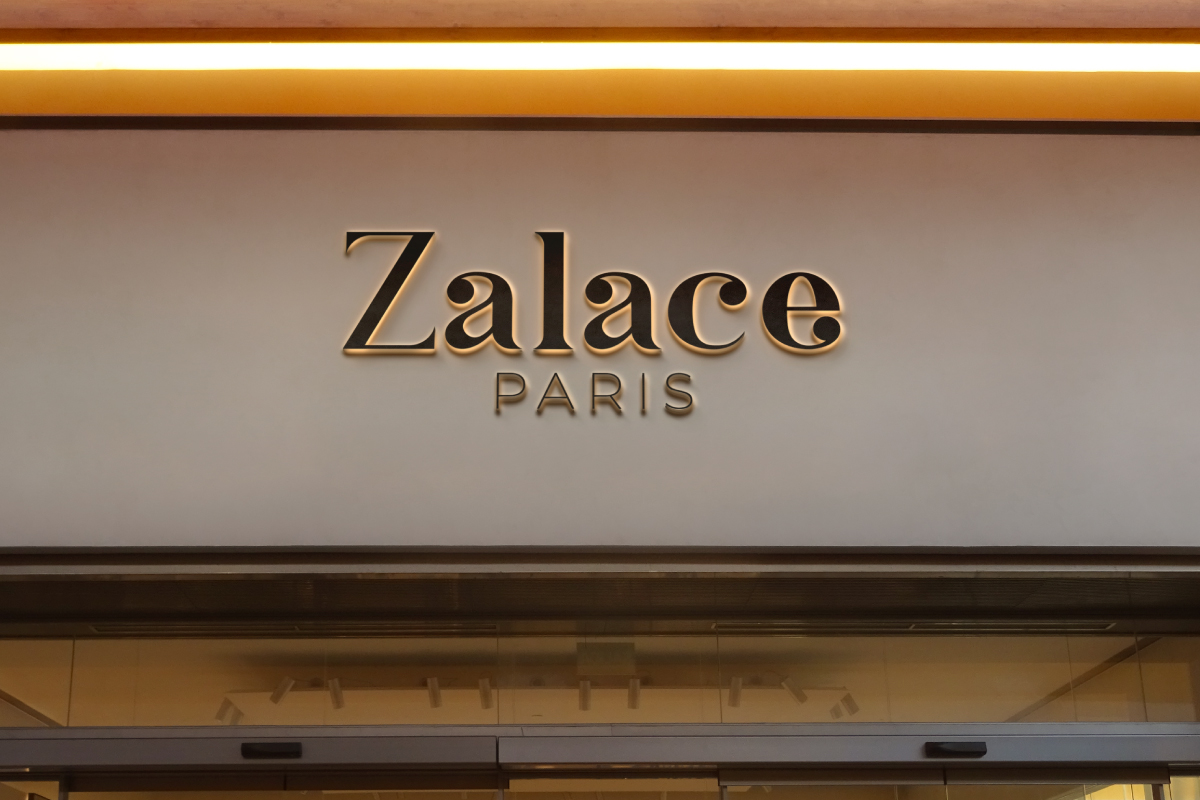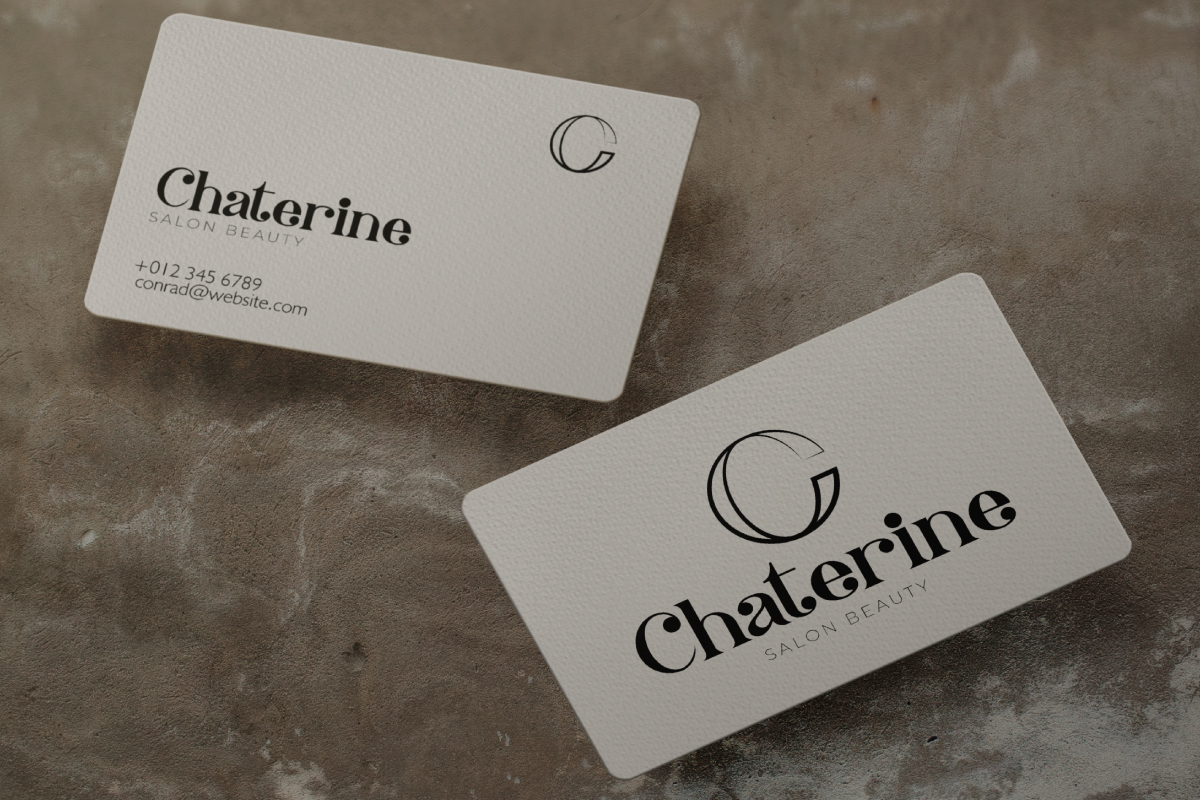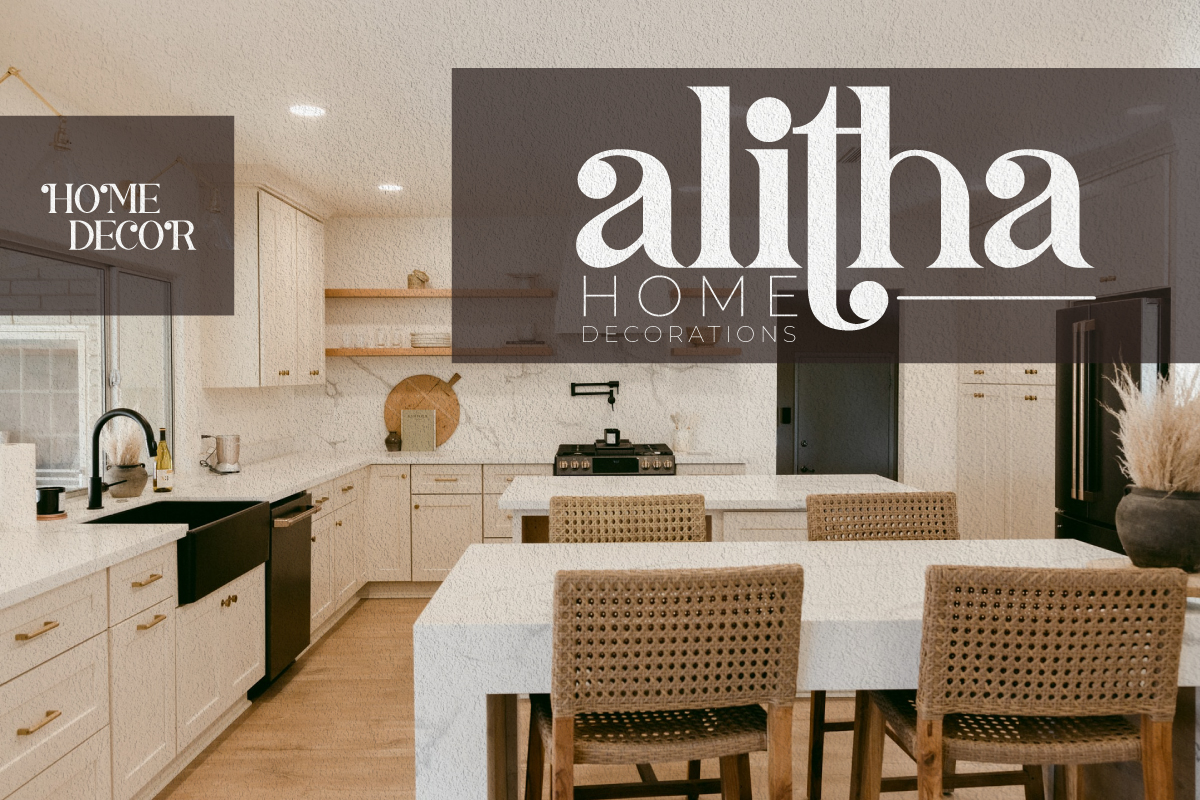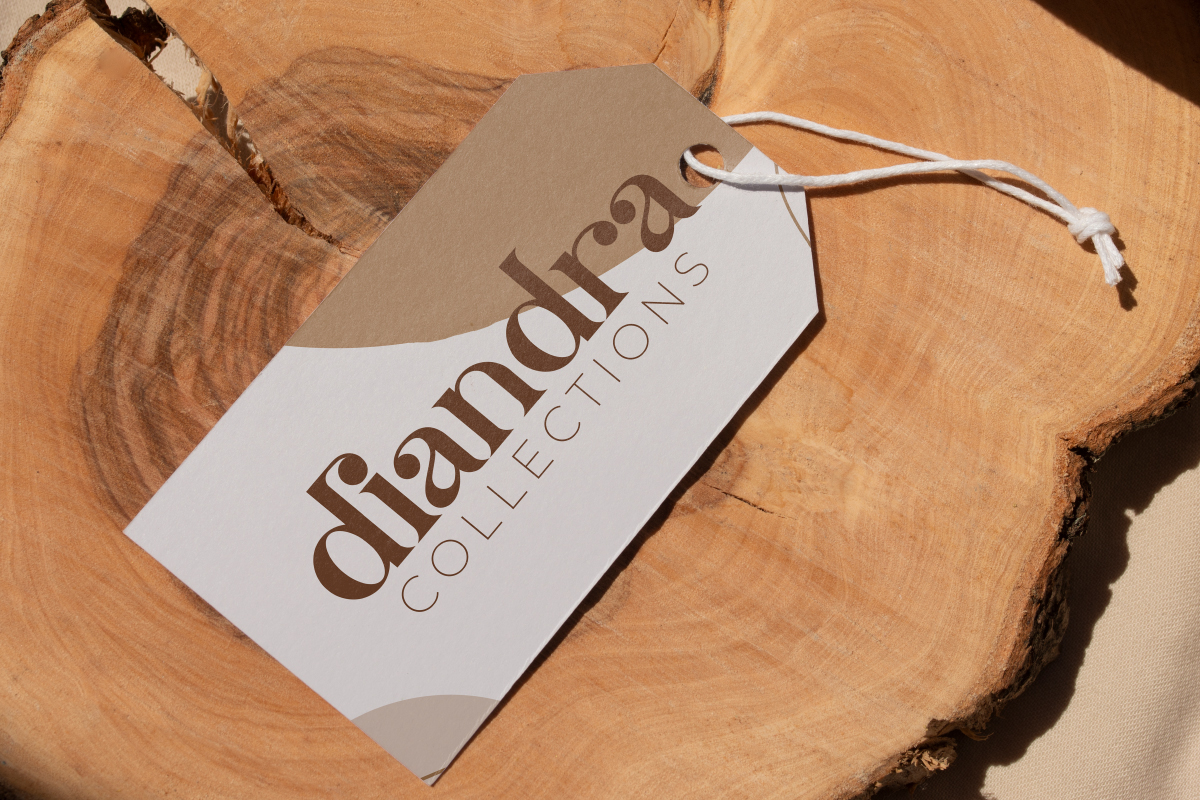
Margalitha Font
Margalitha Serif Font
This is a serif font with classy style. Apart from being classy, this font also has a modern and unique style. Great for branding logos, magazines, product packaging, signage etc. Margalitha Font will be awesome for many industries including : fashion, home decor, magazine, products packaging, signage etc